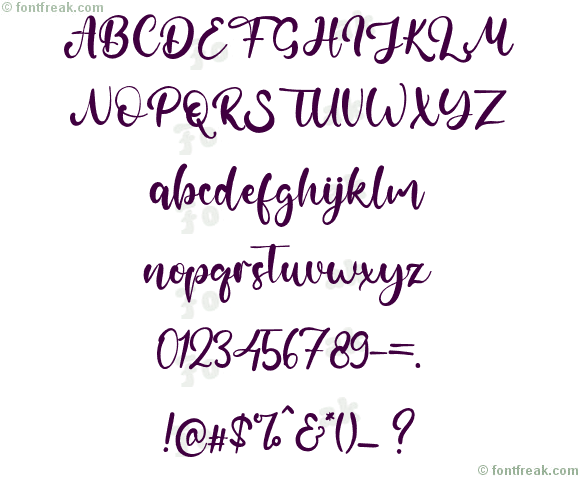
Baroness
The Baroness font by Kong Font is a captivating script typeface that embodies elegance and sophistication. Released in 2021, this font showcases a fluid, handwritten style that is both personal and inviting. With its varying stroke weights, the Baroness font offers a delightful contrast that enhances its visual appeal. The graceful curves and whimsical flourishes create a sense of movement, making it a perfect choice for designs that require a touch of charm. The spacing is carefully balanced, ensuring readability while maintaining a stylish flair.
This versatile font finds its best use in a variety of applications. For wedding invitations, the Baroness font adds a romantic touch that perfectly complements the joyous occasion. Its unique character makes it ideal for branding projects, particularly for small businesses in the lifestyle and beauty sectors, where a personal connection with the audience is crucial. Additionally, the font is well-suited for restaurant menus, giving a refined yet approachable feel that can entice diners. Graphic designers can also utilize the Baroness font for social media graphics, creating eye-catching posts that stand out in crowded feeds.
What sets the Baroness font apart is its ability to blend modern aesthetics with a classic handwritten feel, making it a versatile choice for a wide range of design needs. Whether you're crafting a personal project or professional branding, the Baroness font adds an unmistakable flair that captures attention and leaves a lasting impression.